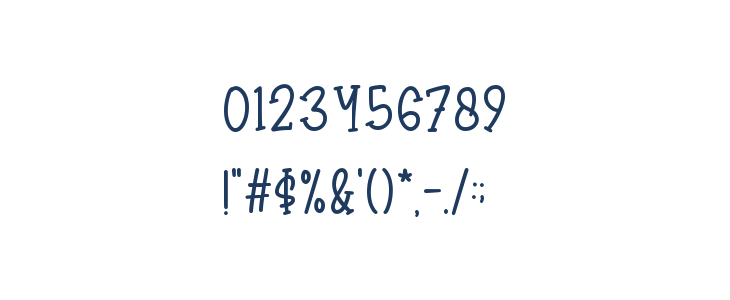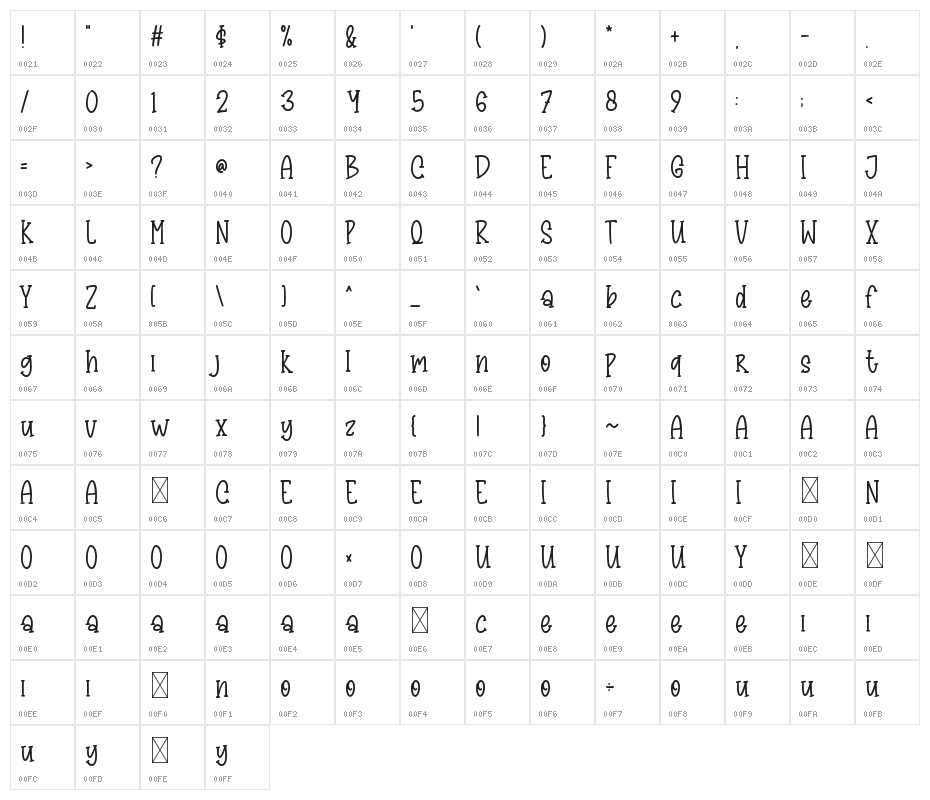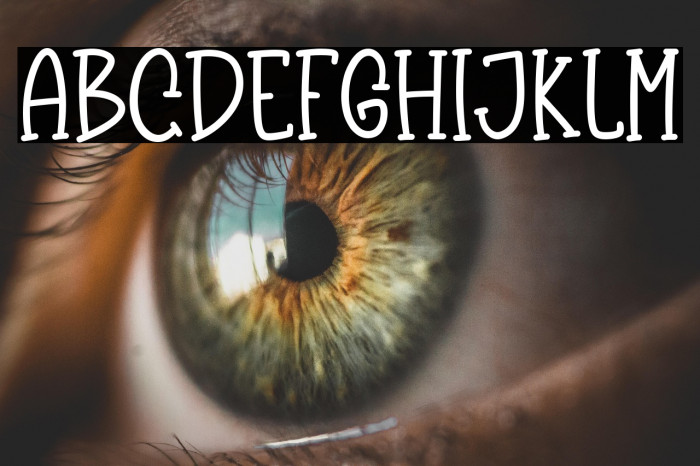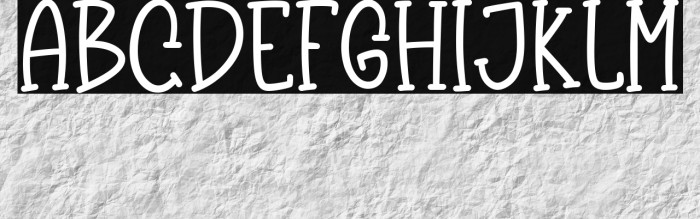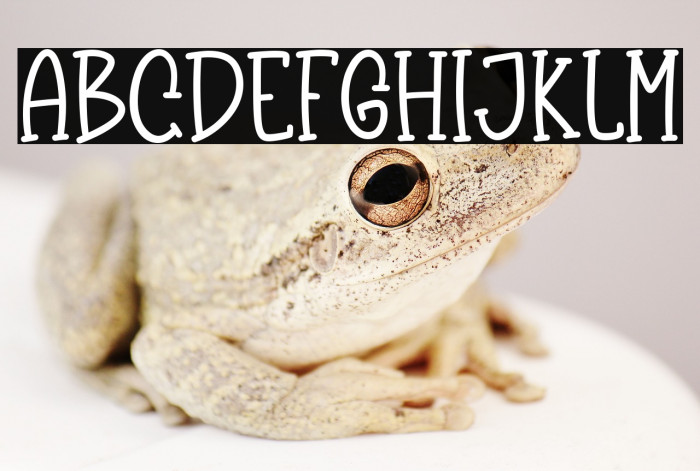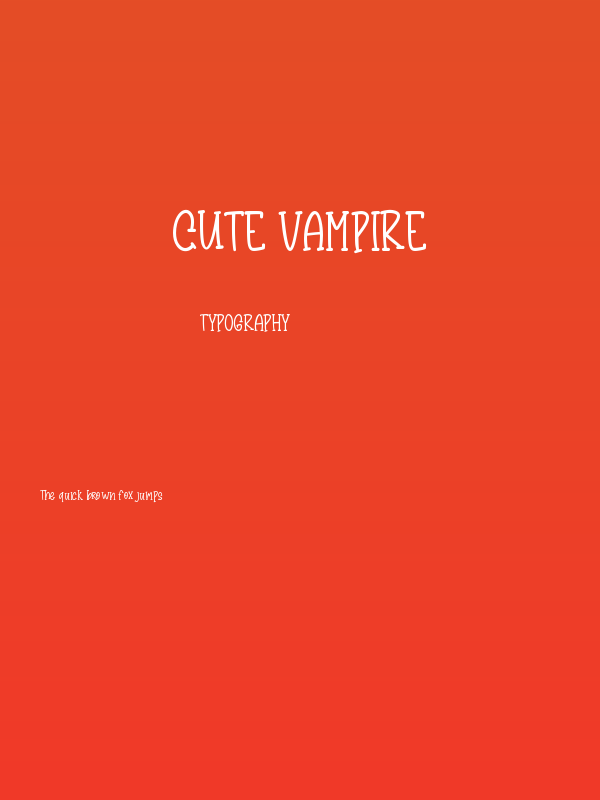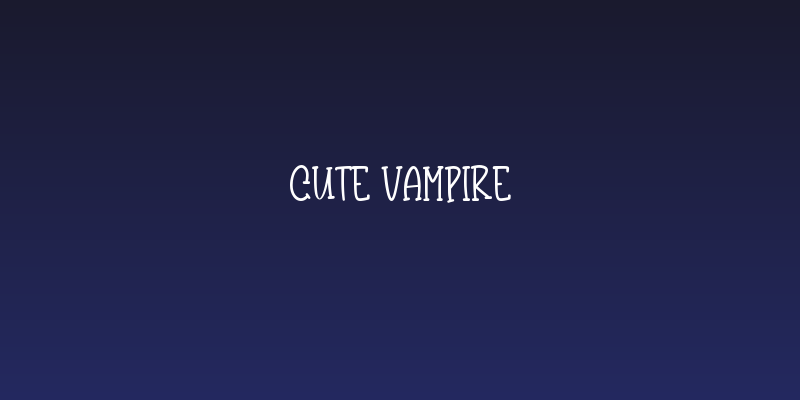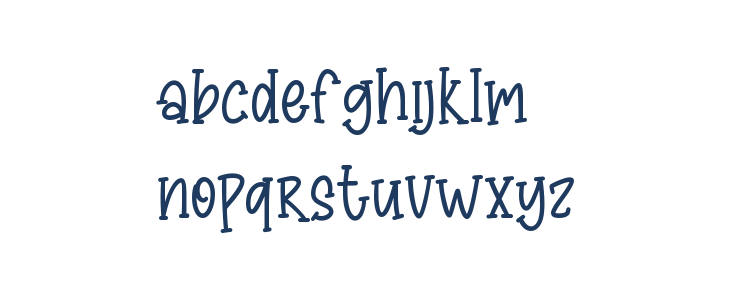
Cute Vampire Font
Cute Vampire Description
This playful and whimsical font features a hand-drawn style with a slightly irregular baseline, giving it a lively and informal appearance. The characters are rounded with a slight tilt, adding to its charm and approachability. The uppercase letters are bold and prominent, while the lowercase letters maintain a consistent flow, making it suitable for casual and fun designs. The numerals and special characters are crafted with the same playful touch, ensuring a cohesive look across all text elements.